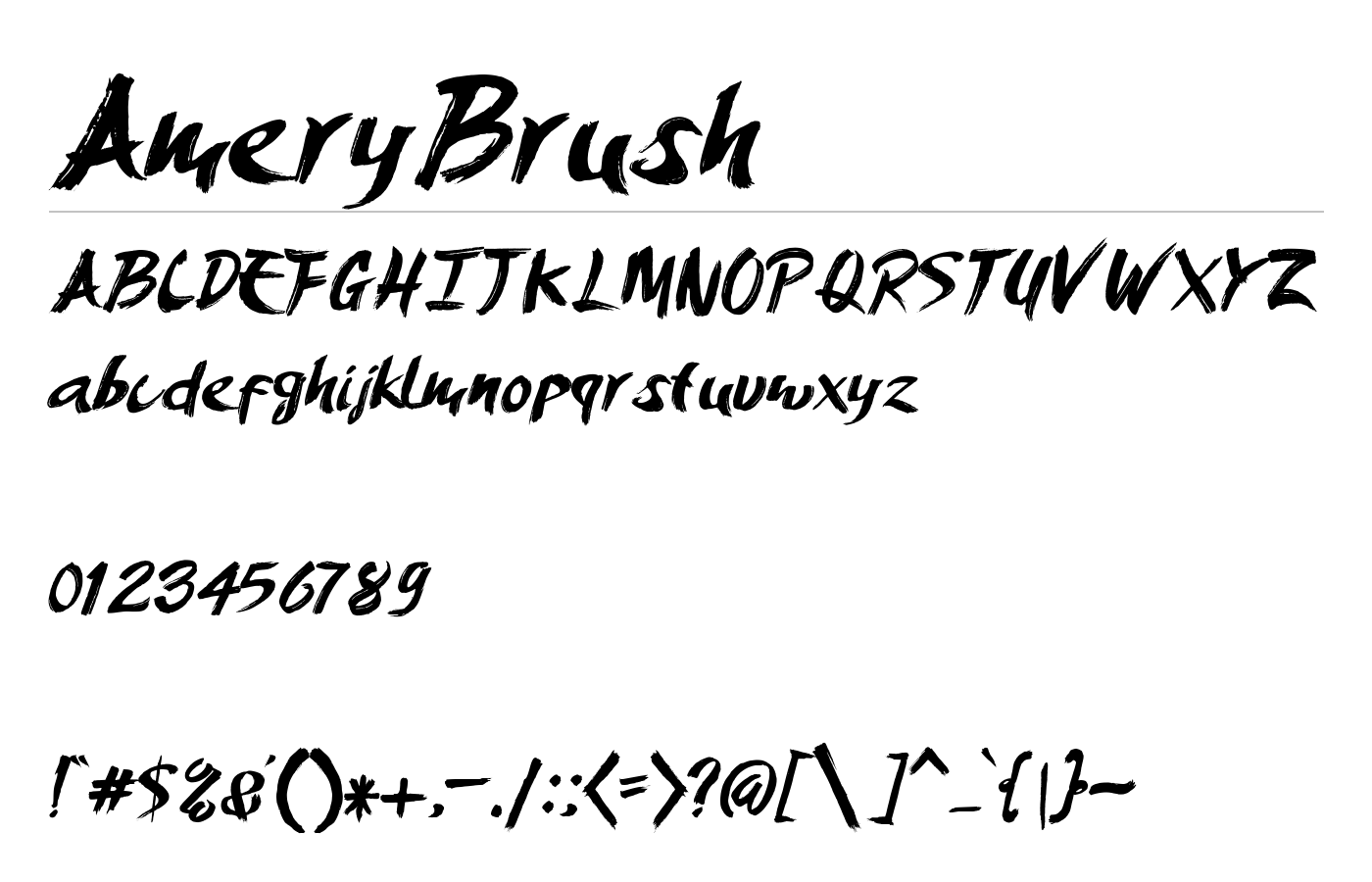
AmeryBrush is a bold, expressive brush script font with a dynamic, hand-painted feel that combines rough, textured strokes with casual elegance. Its energetic and organic letterforms make it ideal for creative branding, posters, and headlines where a vibrant, artistic impression is desired. This font works well for projects seeking a lively, handcrafted touch that stands out with personality and style.
| Font family | AmeryBrush Font |
| Designer | iTypeface |